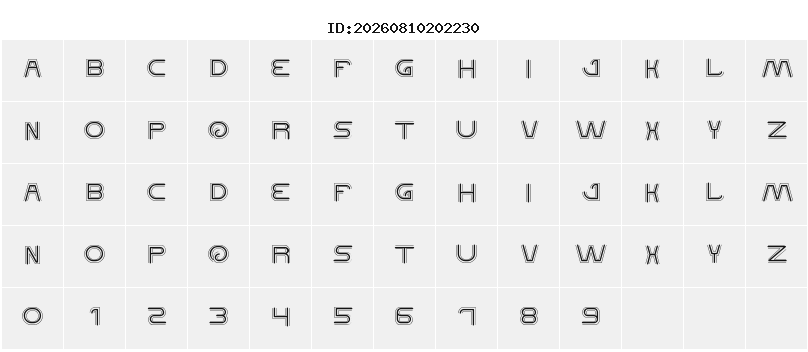
• Font Name: QUALIFIED GOOD
• Full Font Name: QUALIFIED GOOD
• Version: Version 1.00 December 17, 2014, initial release
• Designer: http://www.dafont.com/wino-s-kadir.d2209
About QUALIFIED GOOD.ttf
QUALIFIED GOOD.ttf is a modern, elegant sans-serif font designed for ultimate readability and visual harmony. Perfect for branding, headlines, web design, and print materials.